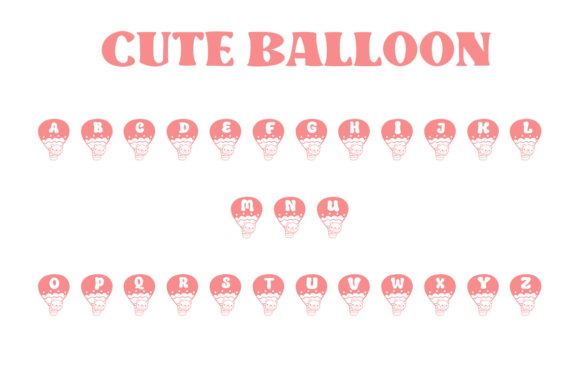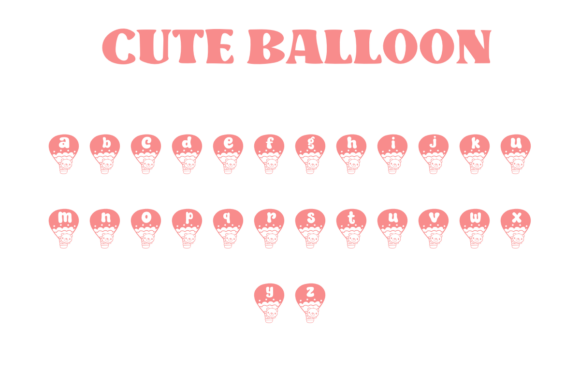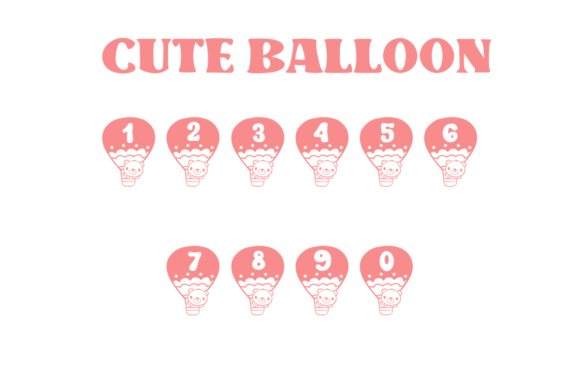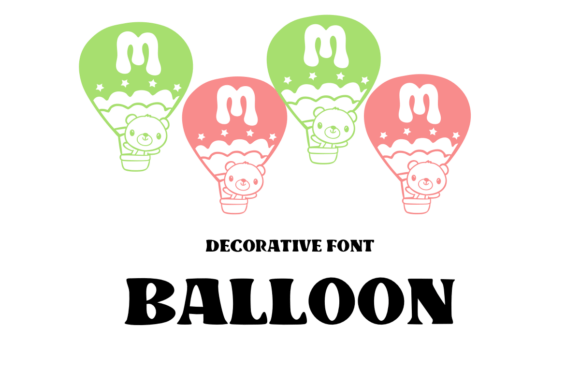
Introduction to Cute Balloon Font
Cute Balloon is a decorative font.
You can use it for taking notes, writing a diary, or making greeting cards However, you can still use it for other designs, such as banners, content, mugs, cards, shirts, stationery, social media posts, and more.